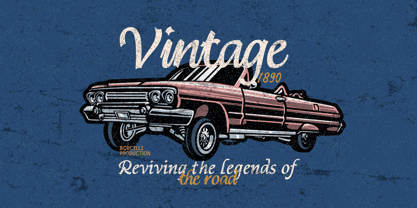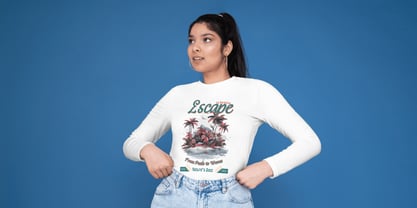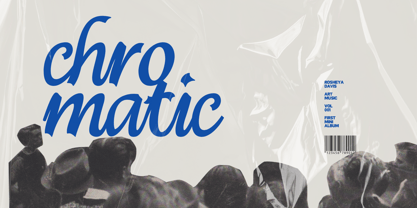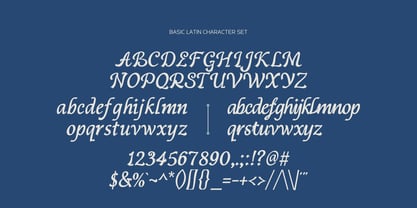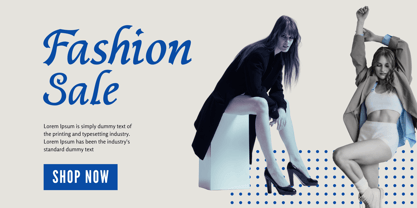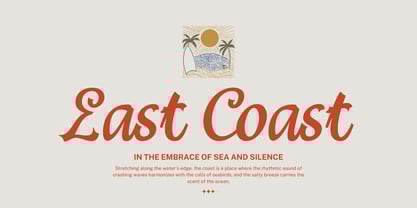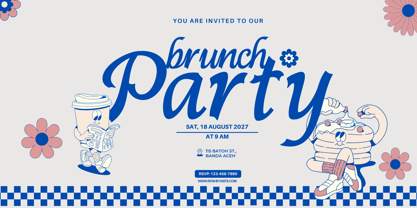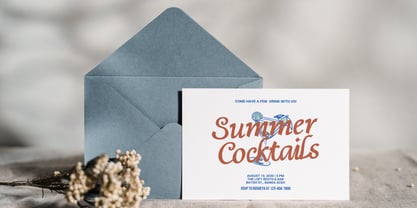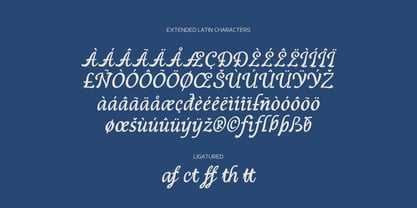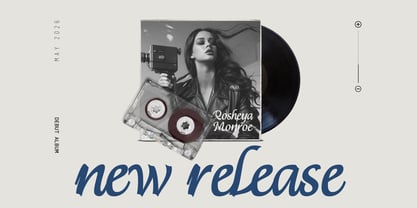
Rosheya
Rosheya – A Simple Modern Elegant Font
Rosheya is a modern and elegant typeface that beautifully blends simplicity and script style. Designed for those who appreciate clean aesthetics with a graceful touch, Rosheya offers two lowercase versatile styles: a minimal simple font and a flowing semi-script font.
Whether you're working on branding, invitations, packaging, or social media design, Rosheya adds a touch of charm and sophistication to every project. Perfect for modern creatives looking for a font that’s both stylish and timeless.